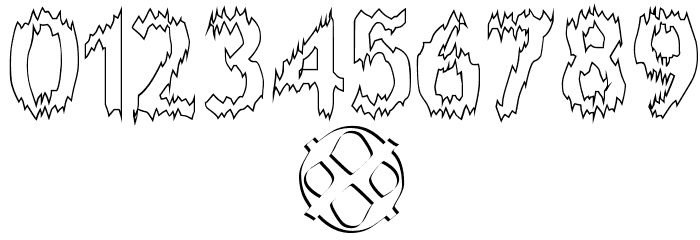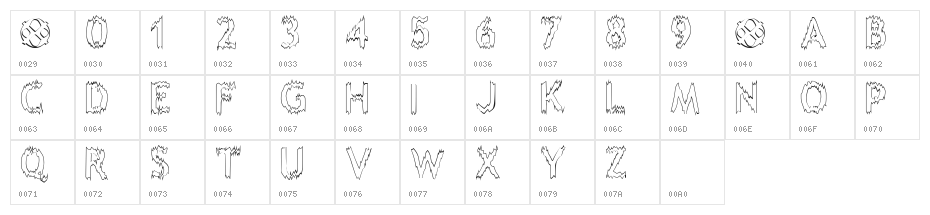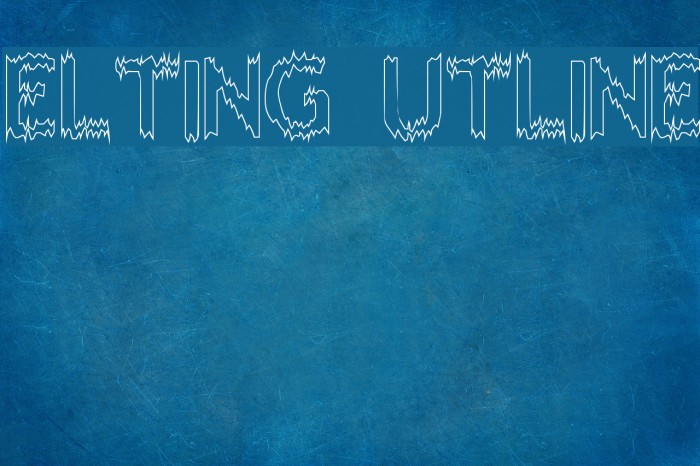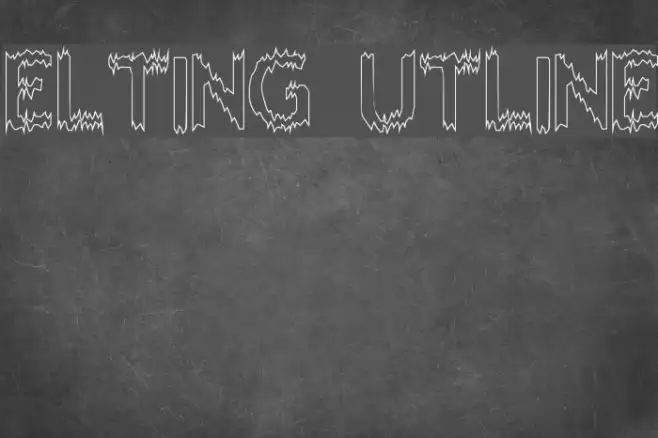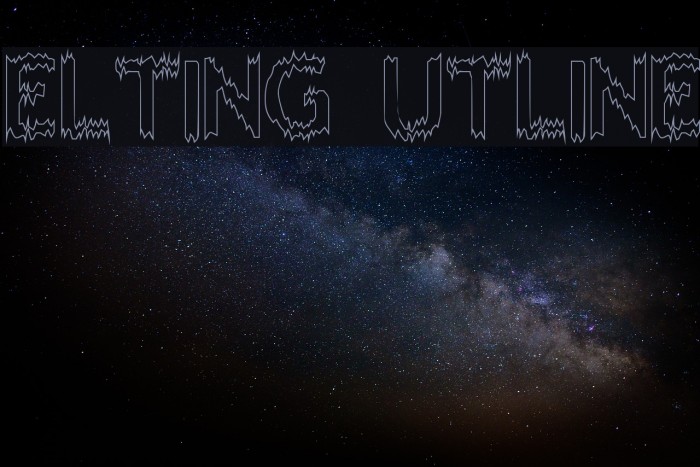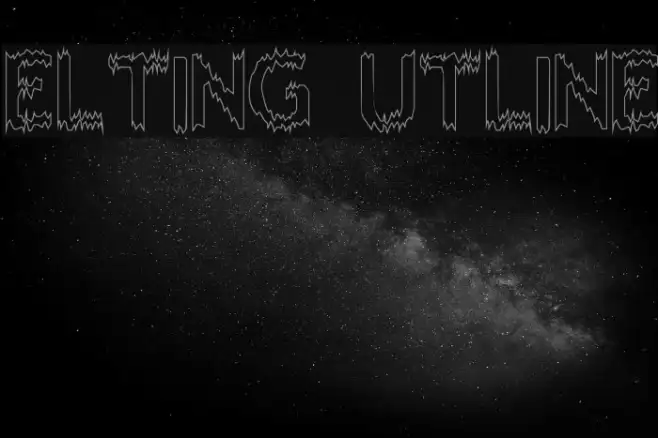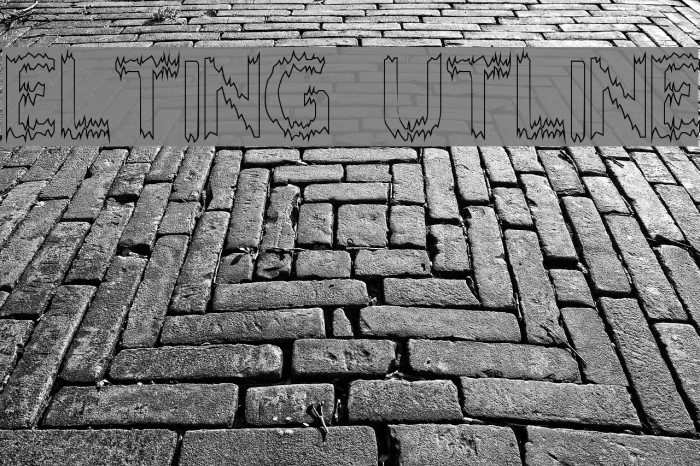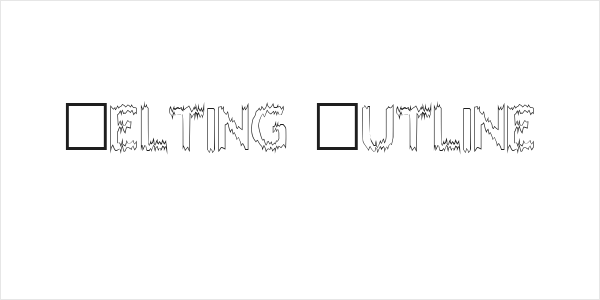
Melting Outline Font
Melting Outline Description
This font features a unique melting effect, giving each character an outline that appears to be dripping or dissolving. The uppercase letters and numbers are designed with sharp, jagged edges that mimic the appearance of melting ice or wax. This creates a visually striking and dynamic look, ideal for capturing attention. The font maintains a consistent thickness throughout each character, ensuring readability despite its decorative style. The overall design is playful and bold, making it suitable for creative and unconventional projects.
| Proposed Projects | Ideal for Halloween-themed designs, edgy posters, album covers, and creative branding projects. |